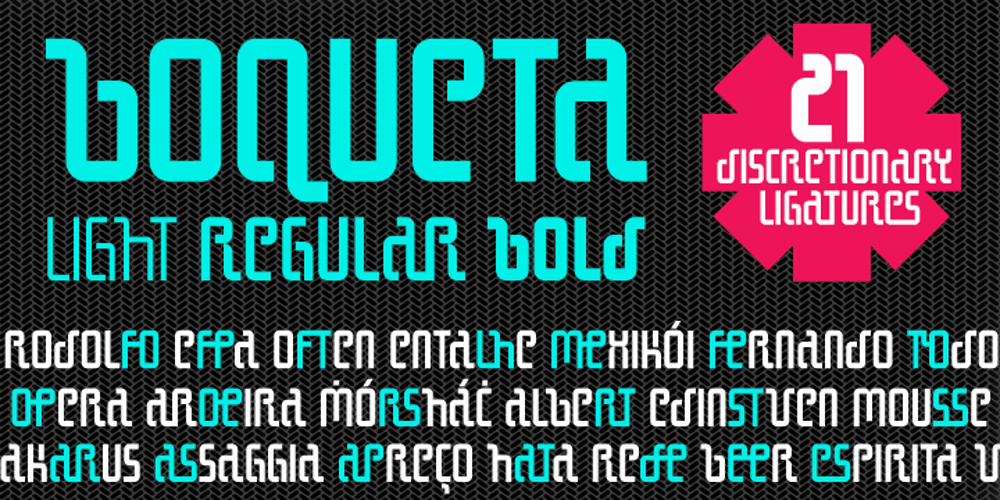
Boqueta Font Family was designed by published by BRtype. Boqueta contains 3 styles and family package options. The design of Boqueta was inspired in stencil and modular forms. The project was selected for Bienal Letras Latinas 2006. The three styles include 21 discretionary ligatures.